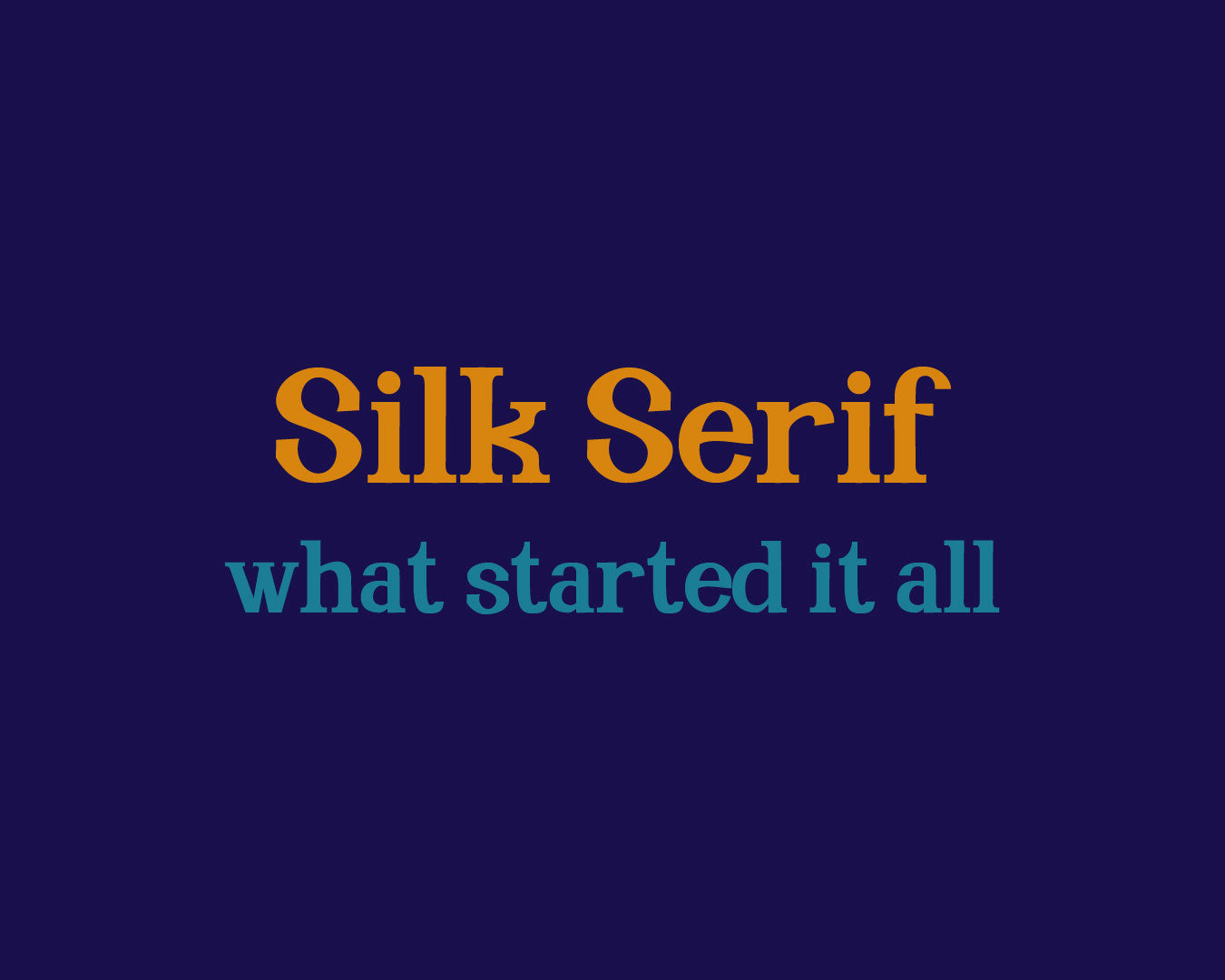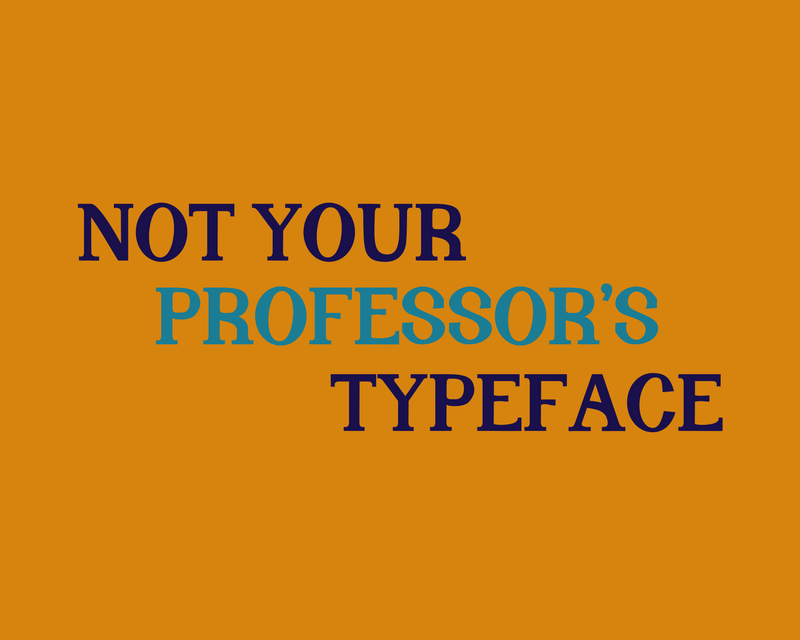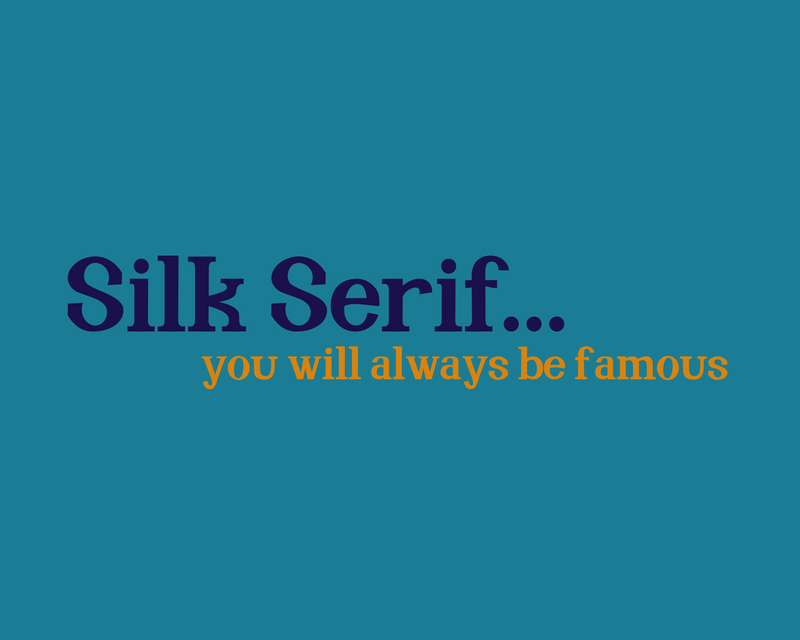
Silk Serif
Classy and sassy, the beauty of Silk Serif lies in the arching strokes and gentle endings. Strength shines through bold forms and minimal contrast.